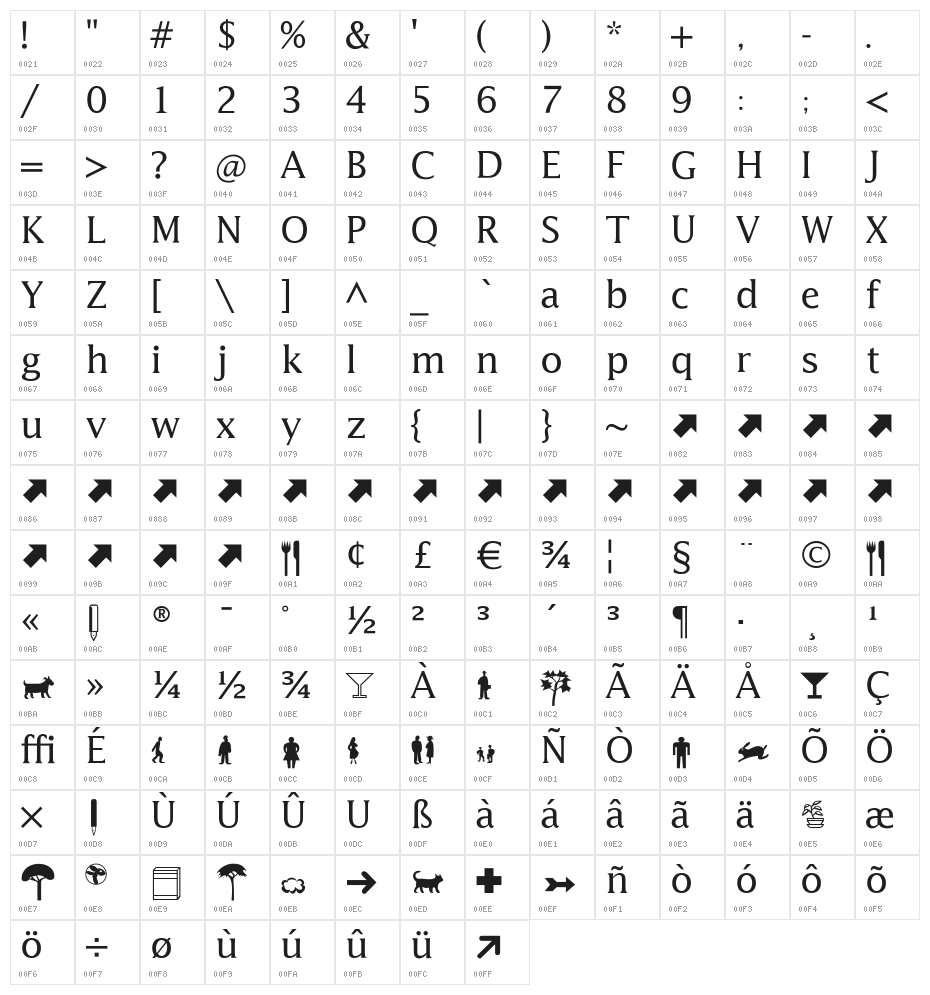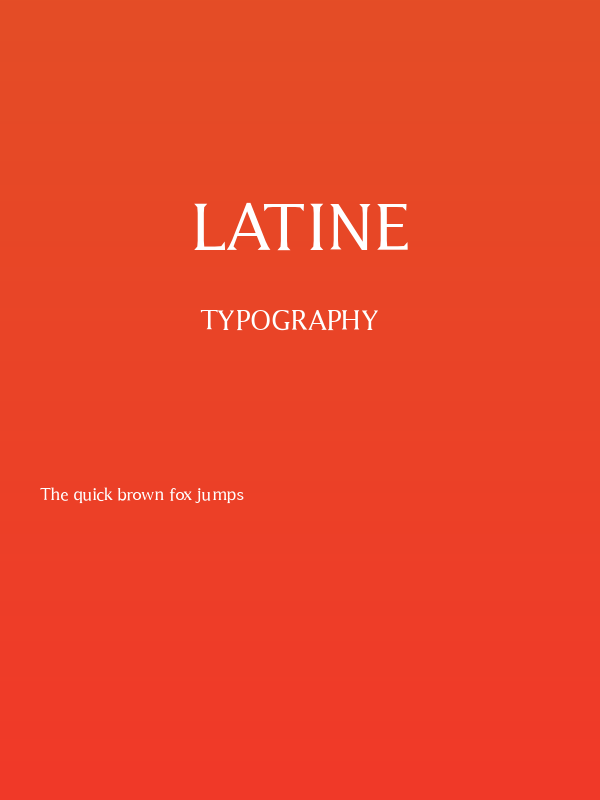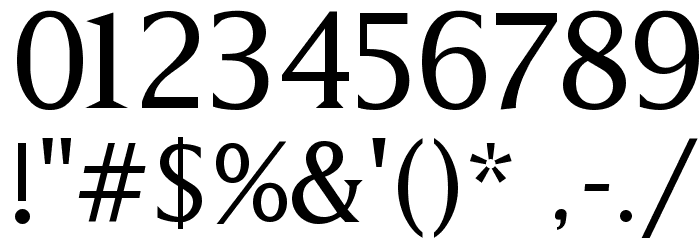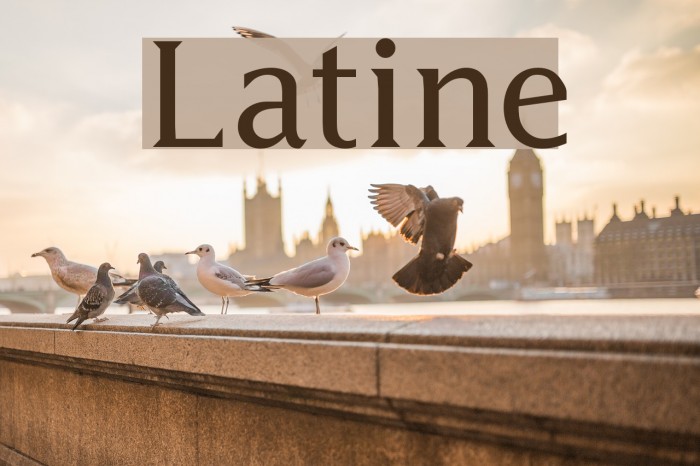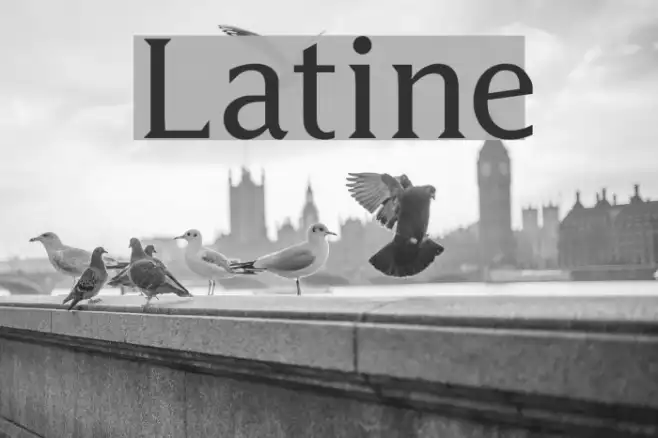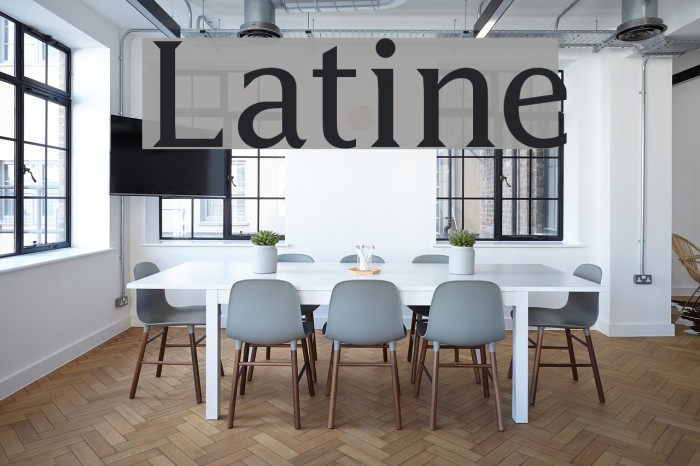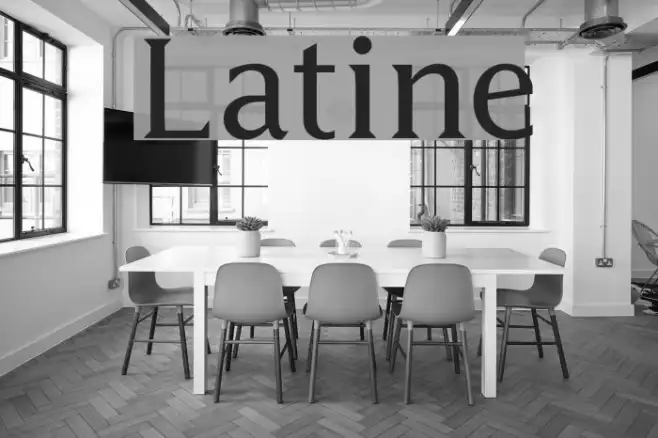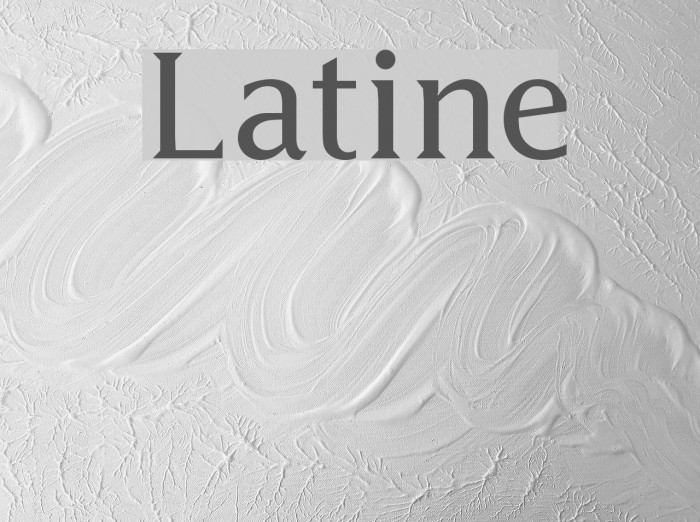
Latine Font
Latine Description
This font features a classic serif style with elegant and refined strokes. The uppercase letters are tall and commanding, while the lowercase letters maintain a consistent and harmonious flow. The numerals are clear and easily distinguishable, making them suitable for both text and numerical data. Special characters are well-defined, adding to the font's versatility. The overall design is balanced, with moderate contrast between thick and thin strokes, providing a timeless and sophisticated appearance.
| Proposed Projects | Ideal for editorial design, book covers, formal invitations, and branding projects that require a touch of elegance. |